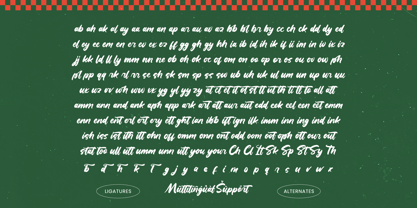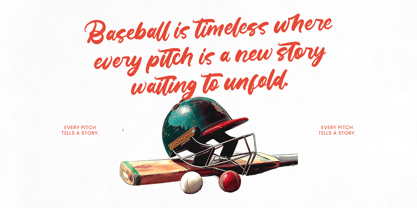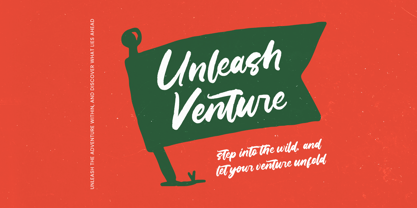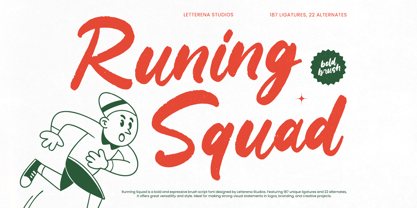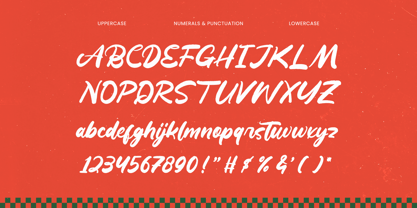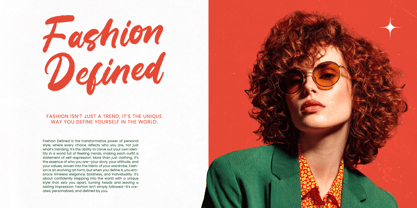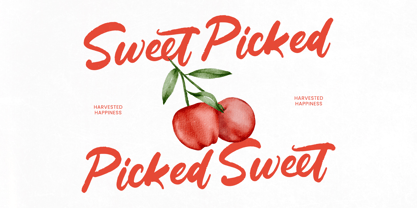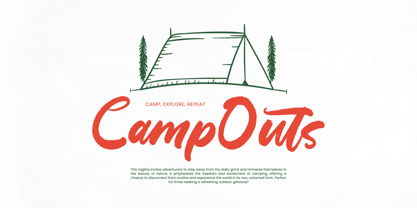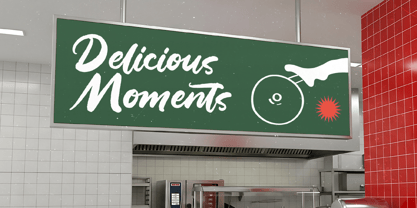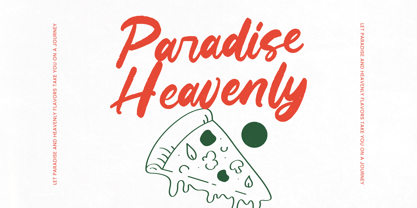
Runing Squad
by Letterena Studios
The Runing Squad Font Family was designed by Heru Utama Putra and published by Letterena Studios. Runing Squad contains 2 styles and family package options. More about this family
Runing Squad - Bold Brush Script Runing Squad is a bold brush script font designed to deliver dynamic energy, expressive character, and modern visual impact. Crafted with textured strokes and natural brush movement, this typeface captures the spirit of creativity and spontaneity while maintaining a polished and professional look. Perfect for logos, branding, posters, apparel, packaging, social media graphics, and advertising campaigns, Runing Squad creates strong and memorable visual statements. Featuring 187 ligatures and 22 alternates, it offers extensive stylistic flexibility for seamless letter connections and unique typographic compositions. Whether used for bold headlines or eye-catching branding, Runing Squad brings confidence, personality, and contemporary brush-style flair to both print and digital design projects.